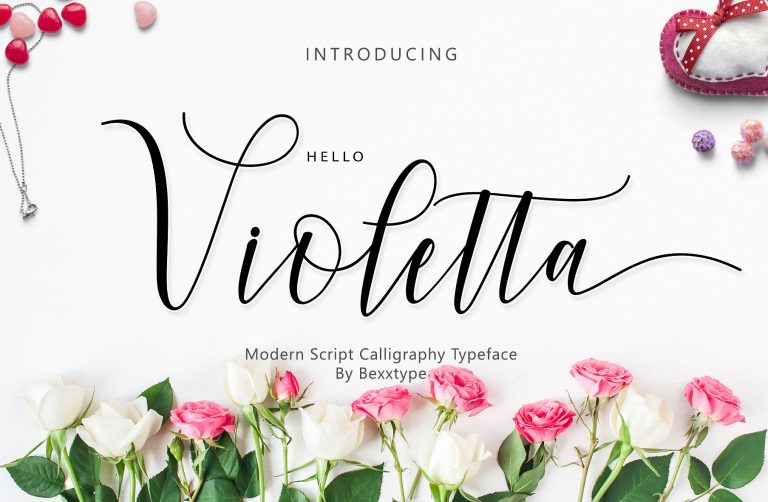
Hello Violetta Script Font
Violetta is a modern calligraphy font with the current handwriting style. It is was designed and shares by Bexxtype. Hello Violetta is modern script font, every single letters have been carefully crafted to make your text looks beautiful. With modern script style this font will perfect for many different project, example: weddings, invitations, greeting cards, posters, name card, quotes, blog header, branding, logo, fashion, apparel, letter, stationery.